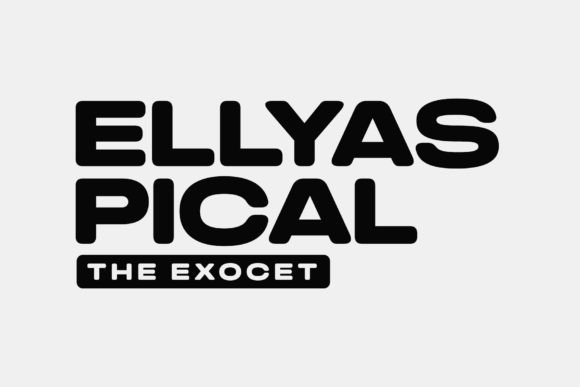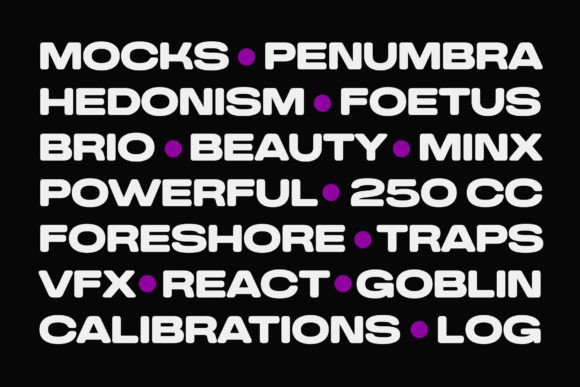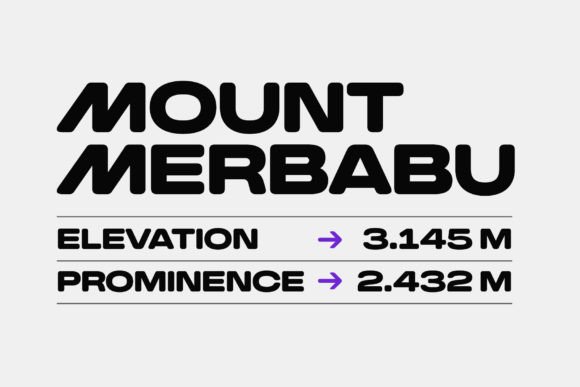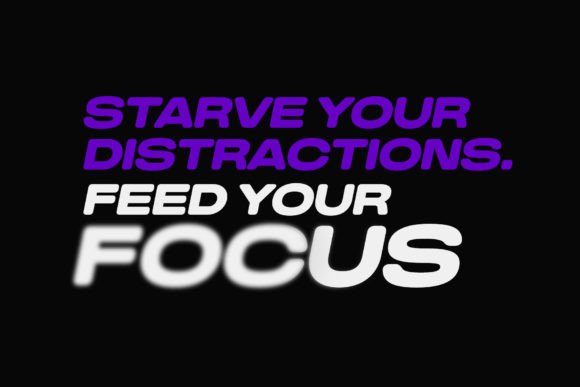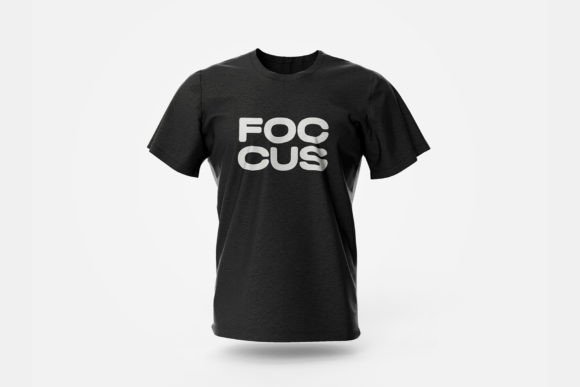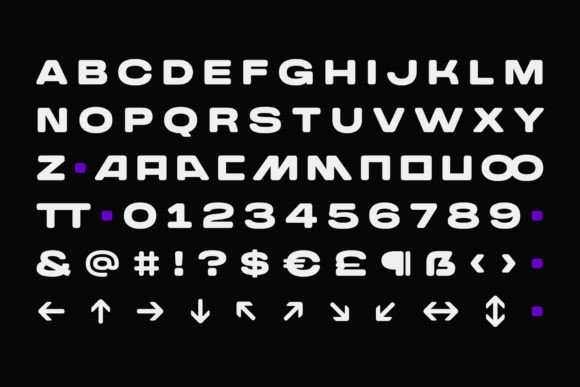
Unlock the Power of Visual Impact with Gelegar Rounded Font
Have you ever been brainstorming ideas for a new project, and suddenly, a spark of creativity hits you? You see it in your mind’s eye: bold, eye-catching typography that demands attention and sets the tone for the entire design. That’s exactly what Gelegar Rounded Font is designed to deliver – an ultra-wide display sans serif font that commands visual and emotional impact.
Gelegar Rounded Font is the perfect tool for designers looking to make a statement. Whether you’re crafting posters, social media posts, or large-format prints, this meticulously crafted font ensures your products stand out from the crowd. With Gelegar Rounded Font, you’ll be able to create attention-grabbing headlines and monumental titling that leaves a lasting impression on your audience.
- Unique Characteristics: The font’s rounded design and subtle curves create a friendly and approachable feel, making it suitable for use in various design contexts, including branding, packaging, and digital interfaces.
- Font Style: The font is available in regular and bold weights, providing flexibility for designers to create visually appealing typography and layouts.
Gelegar Rounded Font Review
At first glance, the Gelegar Rounded Font seems to be a unique and stylish option for designers. It has a lot going for it, ✨ the rounded edges add a touch of warmth and friendliness to any design, ✨ the font is highly customizable, and ✨ it’s available in a range of weights and styles.
However, there are some limitations to consider. ⚠️ The font may not be the best choice for large blocks of text, as the rounded edges can make it difficult to read. ⚠️ Additionally, the font may not be as legible at smaller sizes, which can be a problem for designs that require a lot of fine print. ⚠️ Finally, the font may not be compatible with all operating systems or software, which can cause compatibility issues.
While the Gelegar Rounded Font has some great qualities, its limitations may make it less suitable for certain designs. If you’re looking for a font with a lot of character and a unique look, this might be a good choice. However, if you’re working on a design that requires a lot of text or needs to be highly legible, you may want to consider a different option.
- Unique rounded edges add a touch of warmth and friendliness
- Available in a range of weights and styles
- May not be suitable for large blocks of text
- May not be legible at smaller sizes
Gelegar Rounded Font is suitable for:
- Designing playful and creative content.
- Creating eye-catching headings and titles.
- Adding a touch of whimsy to digital products and marketing materials.